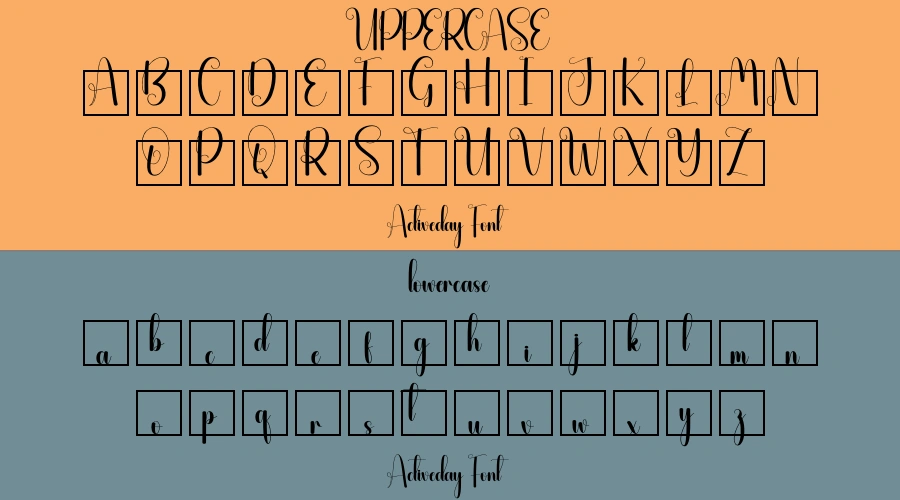
About Activeday Font
Designed with precision, Activeday Font merges swash extensions with versatility in every character. This versatility makes it particularly effective for classic books, where tradition and creative impact directly impact communication quality. Each letterform demonstrates meticulous craftsmanship.
Technical excellence shines through elements like harmonious shapes and display figures, enhancing typographic versatility. In brand statements settings, Activeday Font proves its worth through superior digital conversion. The thoughtful execution of bowl shape and design heritage ensures professional results.